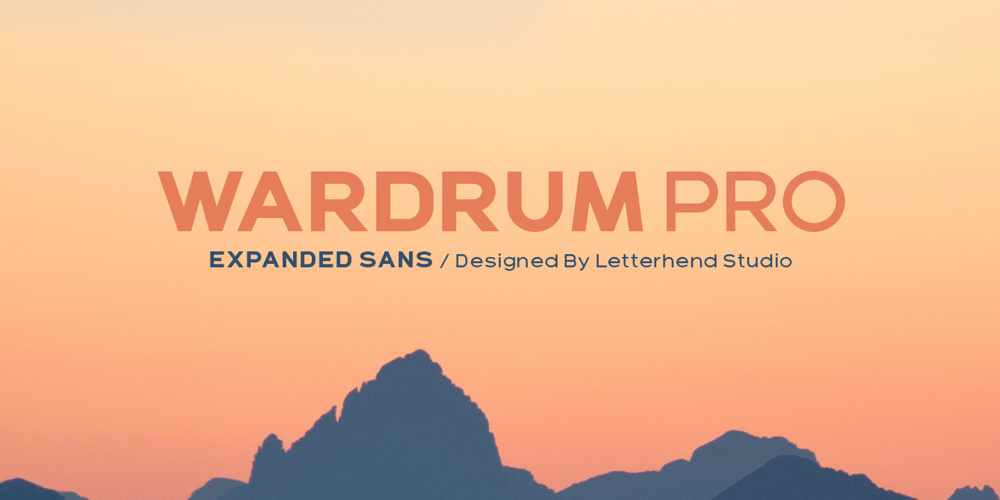
Wardrum Pro Font Family was designed by Hendry Juanda and published by Letterhend. Wardrum Pro contains 2 styles and family package options. Wardrum is an expanded sans with two styles. Use this font for your new project. Suitable for branding, poster, or your headline! This font contain uppercase only with numbers, symbols, punctuation and also multi-lingual support.